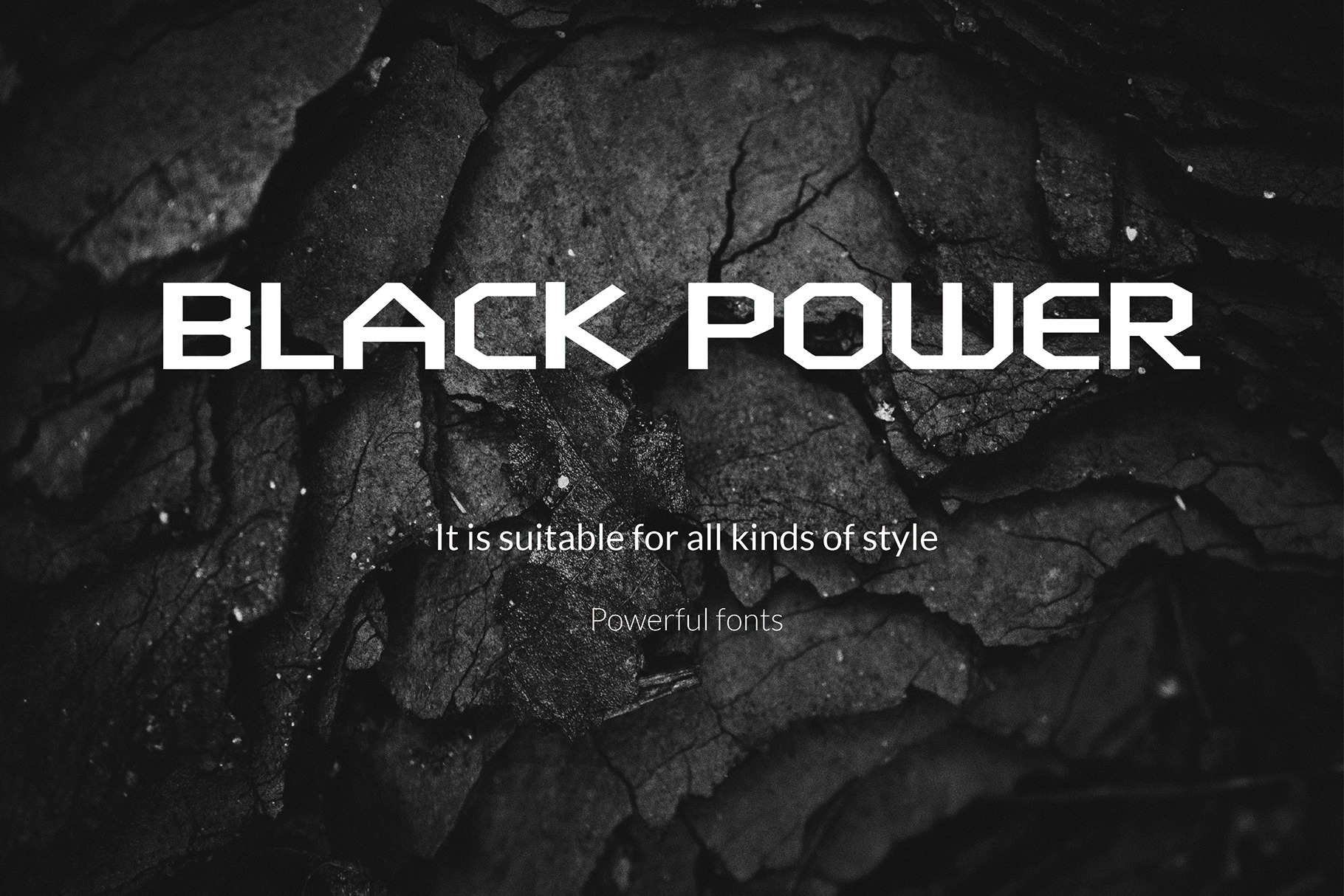
BLACK POWER-Font
This is a really cool font,It's heavy and powerful,Suitable for: Web design,Graphic Design,Posters,Concert,Goods,Magazine, etc. It is very cool It is suitable for making logo and posters.